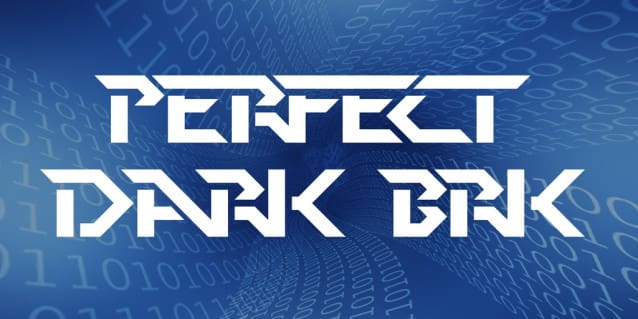
Perfect Dark Font is based on the Logo from the game Perfect Dark. Ideal for logos, handwritten quotes, product packaging, header, poster, merchandise, social media & greeting cards.